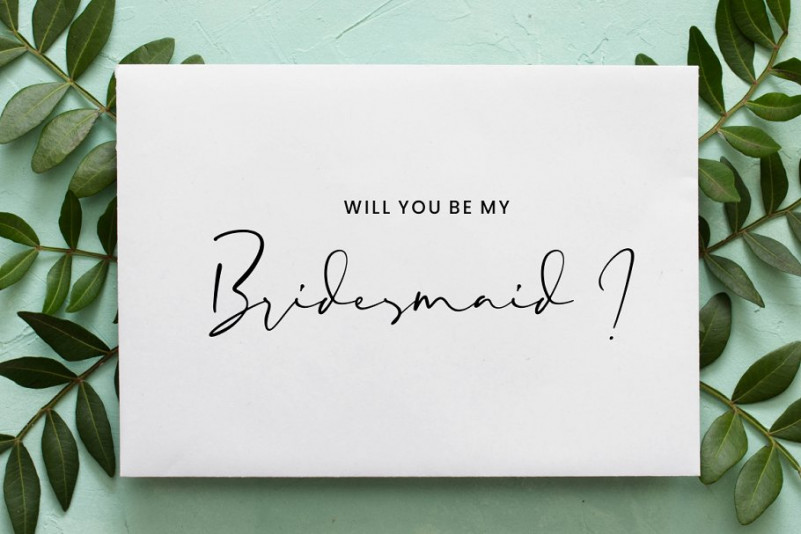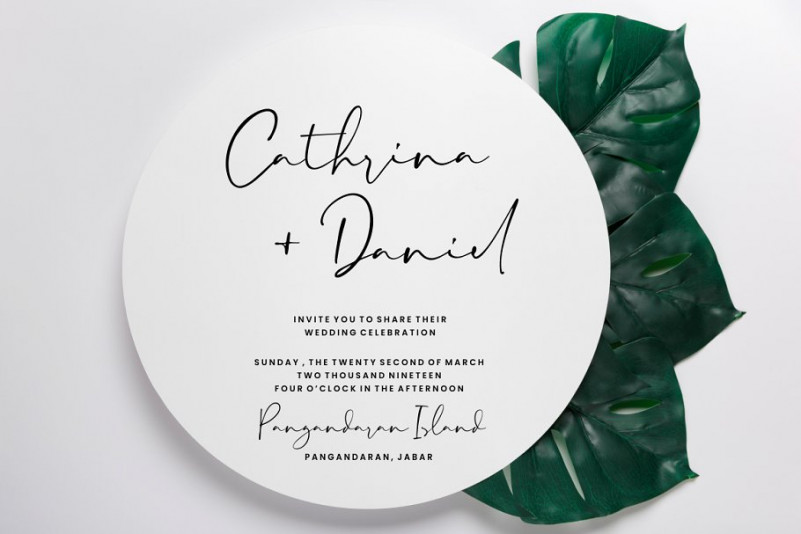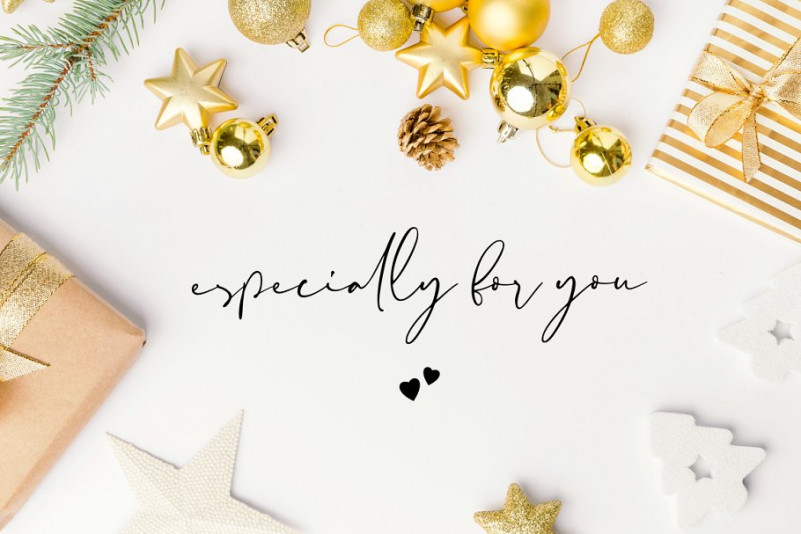
Paris Tonight Signature Font
Thank you for looking! This is a handwritten chick font with exquisite accents. It is perfect for branding, wedding invitations and invitation cards and many more. Introducing Paris Tonight Font. It is design and shared by Sronstudio. Paris Tonight Signature is a natural handwritten font, this font Is perfect for logo, invitation, stationery, wedding designs, social media posts, advertisements, product packaging, product designs, label, photography, watermark, special events or anything.